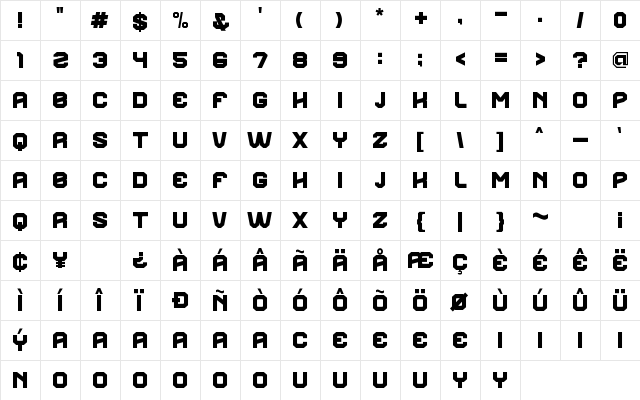
Grizlie Regular
| Foundry | HansCo |
| Designer | Burhan Afif |
Design Context for Grizlie Typeface
Grizlie is a composed and adaptable typeface that performs quietly and consistently across a wide range of design contexts.